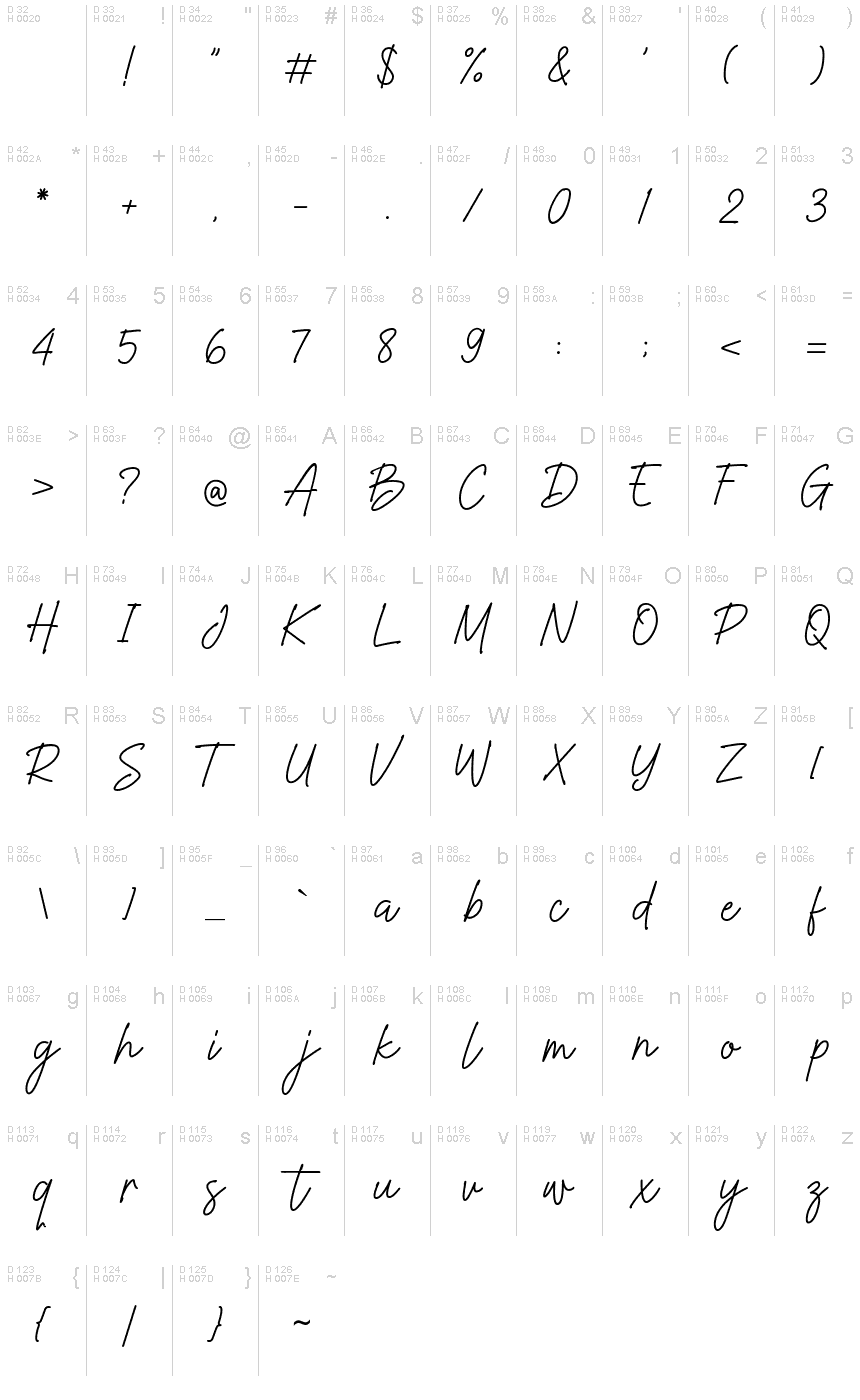
Busted Soul
Busted Soul, a captivating handwritten font by Heinzel Std, exudes a delicate charm with its light weight and semi-condensed width.
This enchanting typeface effortlessly captures the essence of artistic endeavors - ideal for crafting elegant wedding invitations or adding a whimsical touch to personal stationery. Its gentle strokes make it perfect for designing heartfelt greeting cards, while its unique character lends itself well to creating eye-catching logos and branding materials.
Busted Soul brings an effortless flair to any project that seeks to convey warmth, creativity, and individuality.